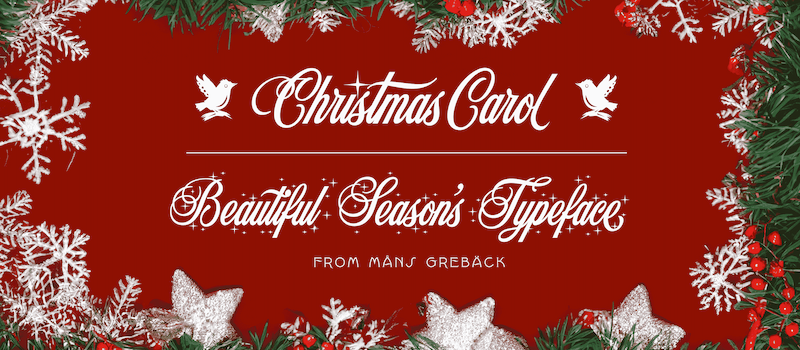
Font name: | Christmas Carol |
NOTE: This font is for PERSONAL USE ONLY! To purchase a commercial license, visit: http://mn.sg/christmas-carol Christmas Carol is a classic typeface that embraces the holiday spirit. Infused with a touch of nostalgia, Christmas Carol wraps your words in the comfort of yuletide cheer. Using the Star version, use parenthesis characters ( ) [ ] { } to make surrounding stars. Example: (reindeer) [sleigh] Use underscore _ to make a swash, or multiple underscores to make them longer. Example: Santa Claus______ For questions, please visit www.mansgreback.com/faq |